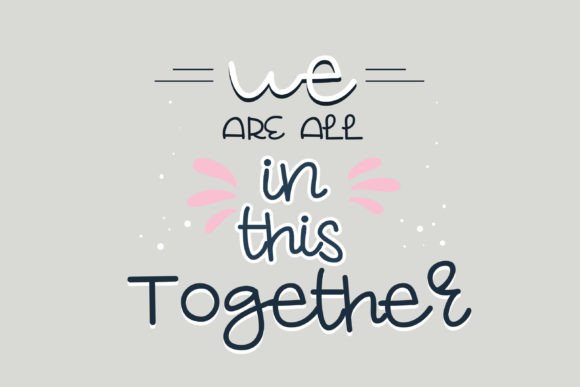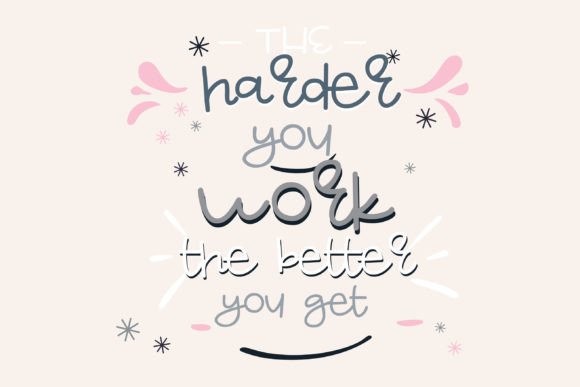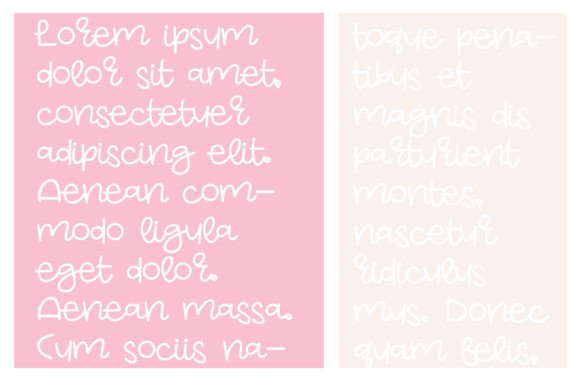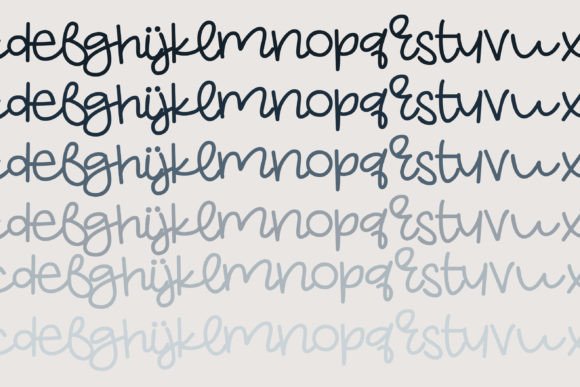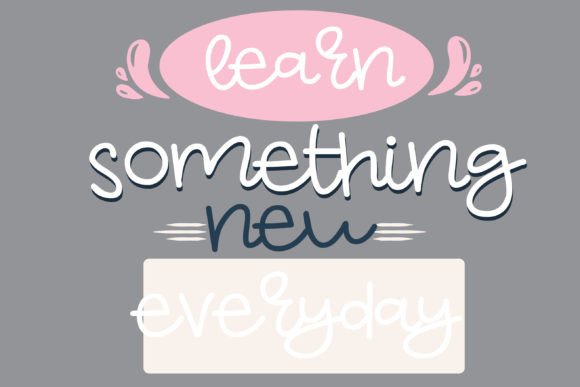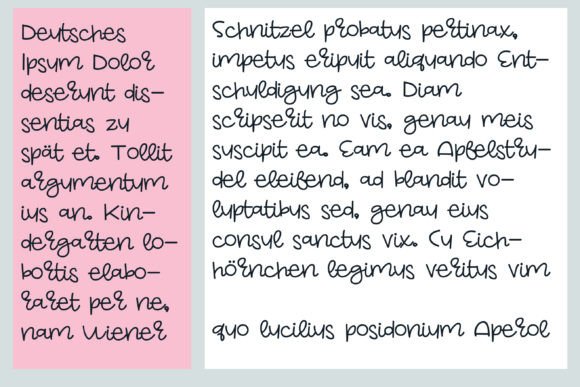
Breathtaking Font: A Hand-Crafted Script Font with a Youthful Feel
Are you looking for a font that can add a touch of whimsy and playfulness to your designs? Look no further than the Breathtaking Font, a hand-crafted script font that is sure to capture the attention of your audience. With its unique blend of youthful energy and print-like uppercase letters, this font is perfect for designers and crafters who want to add a personal touch to their work.
A hand-crafted font is a type of font that is designed to look like it was written by hand. This type of font is often used for invitations, greeting cards, and other items where a personal touch is desired. Handwritten fonts can be either formal or informal, and they can be used for a variety of purposes, from creating beautiful wedding invitations to designing fun and playful craft projects.
Hand-crafted fonts like Breathtaking Font are created by skilled designers who use a combination of traditional techniques and digital tools to create a unique and authentic look. Each letter is carefully crafted to mimic the imperfections and nuances of handwriting, giving the font a warm and inviting feel.
Characteristics of Breathtaking Font
So, what makes Breathtaking Font so special? Here are just a few of its key characteristics:
- Whimsical feel: Breathtaking Font has a playful, whimsical feel that is perfect for designs that require a touch of personality.
- Youthful energy: This font has a youthful, energetic vibe that is sure to appeal to designers and crafters who want to create fun and playful designs.
- Print-like uppercase: The uppercase letters in Breathtaking Font have a print-like quality that gives the font a sense of sophistication and elegance.
- Hand-crafted look: As a hand-crafted font, Breathtaking Font has a unique, authentic look that is sure to add a personal touch to your designs.
Uses for Breathtaking Font
Breathtaking Font is a versatile font that can be used for a wide range of design projects, including:
- Invitations: Whether you’re designing wedding invitations, birthday party invitations, or other special event invitations, Breathtaking Font is a great choice.
- Greeting cards: This font is perfect for creating beautiful, handmade greeting cards for special occasions.
- Craft projects: Breathtaking Font is a great choice for crafters who want to add a personal touch to their projects, from scrapbooking to DIY home decor.
- Digital designs: This font can also be used for digital designs, such as social media graphics, blog posts, and website headers.
Tips for Using Breathtaking Font
Here are a few tips for using Breathtaking Font in your designs:
- Use it sparingly: Because Breathtaking Font is a script font, it can be overwhelming if used too much. Use it sparingly to add a touch of elegance and sophistication to your designs.
- Pair it with other fonts: Breathtaking Font pairs well with other fonts, such as sans-serif fonts or serif fonts. Experiment with different pairings to find the one that works best for your design.
- Experiment with colors: This font looks great in a variety of colors, from bold and bright to soft and pastel. Experiment with different colors to find the one that works best for your design.
In conclusion, Breathtaking Font is a beautiful, hand-crafted script font that is perfect for designers and crafters who want to add a personal touch to their work. With its whimsical feel, youthful energy, and print-like uppercase letters, this font is sure to capture the attention of your audience. Whether you’re designing invitations, greeting cards, or other items, Breathtaking Font is a great choice.